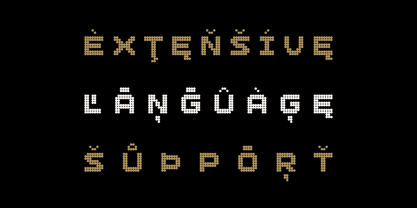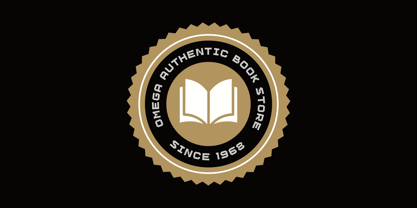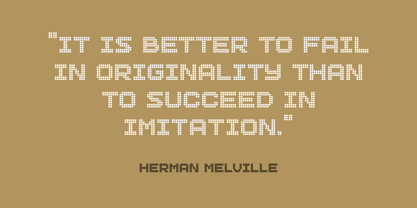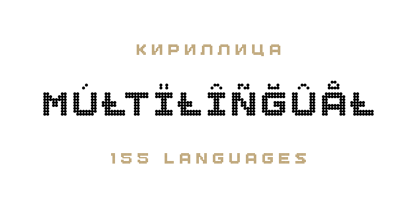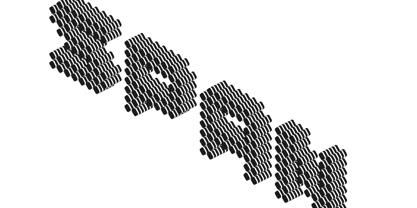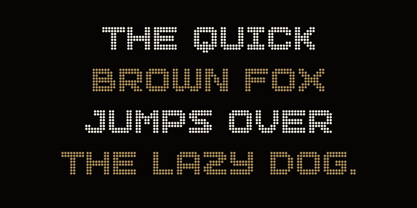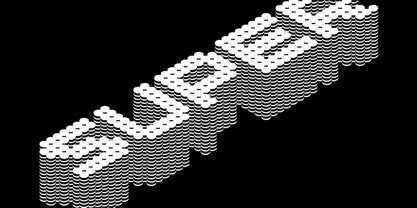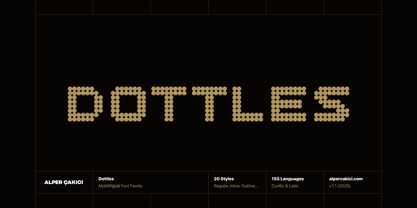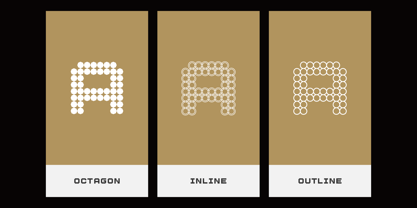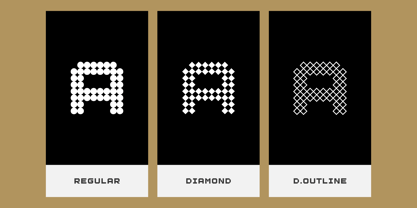
Dottles
by AlperCakici
The Dottles Font Family was designed by Alper Çakıcı and published by AlperCakici. Dottles contains 20 styles and family package options.
Meet Dottles — a fun, geometric dotted font family packed with personality! Designed for bold, creative projects, Dottles mixes clean structure with playful dot-based styling. Use it for posters, branding, kids’ products, tech designs, crafts, logos, and anything that needs a standout display typeface. Dottles includes 155 languages plus full Cyrillic, so your message speaks globally. You also get a huge set of styles: Regular, Inline, Outline, Sharp variants, Diamond variants, Octagon variants, Hexadecagon variants, Pattern styles, and more. Mix them, layer them, and create eye-catching artwork with ease. Whether you’re designing digitally or for print, Dottles brings a crisp, modern dotted aesthetic that makes every project pop. Perfect for designers who love bold shapes and modular geometry—you’ll have endless creative possibilities.